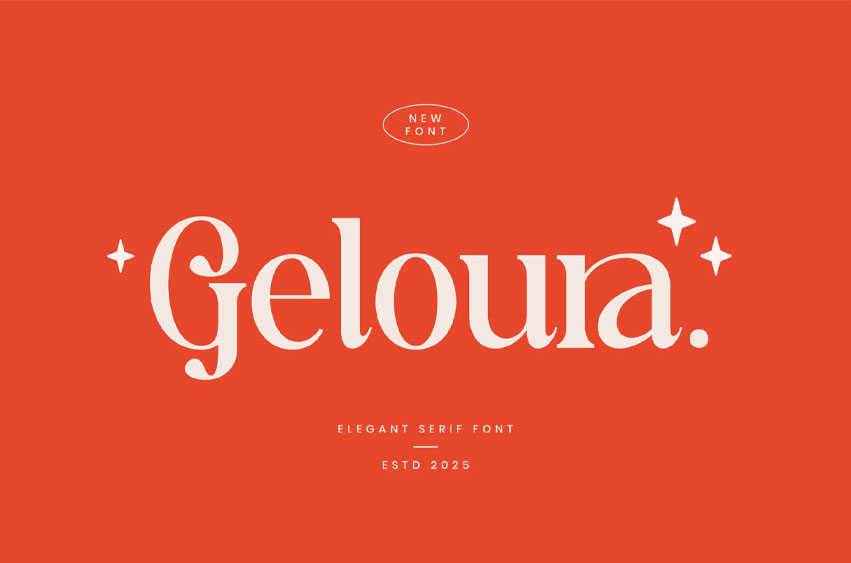
Geloura Font
Geloura Font is an elegant serif font crafted with graceful curves and refined letterforms. Designed to bring sophistication and modern charm into every composition, Geloura blends classic serif structure with contemporary smoothness.
Its high-contrast strokes and subtly ornate details make it ideal for branding, editorial layouts, logotypes, and any design that seeks a touch of timeless luxury.
Elegant Serif Font Geloura is the perfect solution for designers who value elegance, professionalism, and timeless beauty in typography.